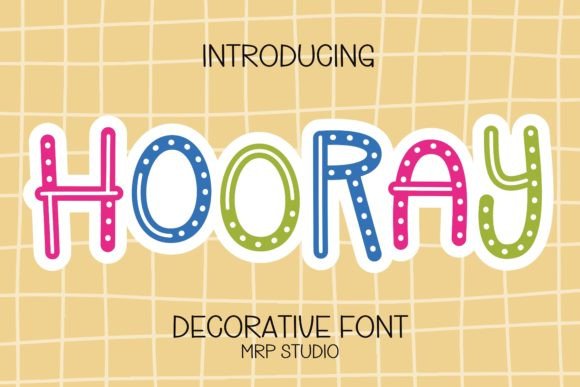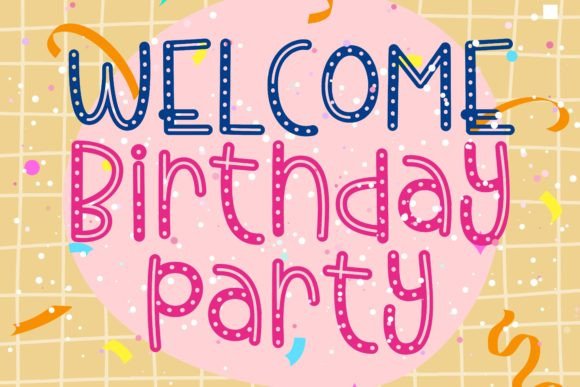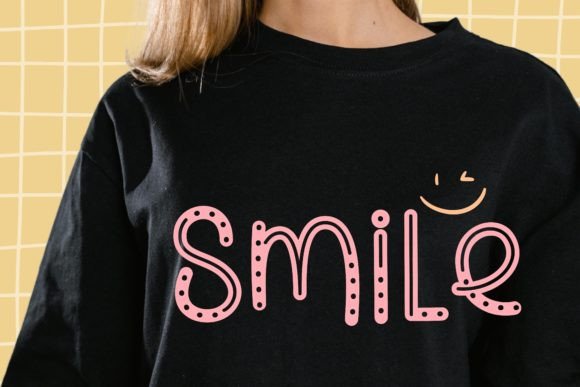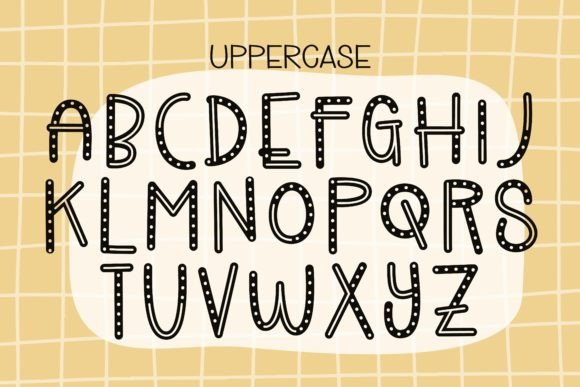
Hooray Font: A Cute Decorative Font for Playful DIY & Cricut Projects
About the Hooray Font
Introducing the Hooray Font, a beautifully crafted typeface designed to elevate your creative projects. Hooray is designed in a playful and adorable decorative font style. It would be awesome to your colorful child-related projects, back-to-school, party decorations, invitations, posters, blogs, clothing, greeting cards, social media posts or anything that needs a friendly touch.
Hooray’s playful nature makes it ideal for headlines, short text blocks on posters, and branding elements requiring a friendly, approachable feel. It excels in children’s book illustrations, party invitations, and social media graphics where its decorative style adds visual interest. However, its decorative forms make it unsuitable for body copy or UI elements requiring high readability.
For optimal visual harmony, pair Hooray with a clean sans-serif like Open Sans for body text or a more geometric sans-serif like Futura for a modern contrast. A simple serif like Garamond could also work well, offering a sophisticated counterpoint to Hooray’s whimsical energy.
Hooray’s core personality is undeniably cheerful and whimsical. Its friendly aesthetic is best suited to brands targeting young audiences or projects emphasizing fun and approachability.
Hooray Font Usage Examples
Hooray Font Example